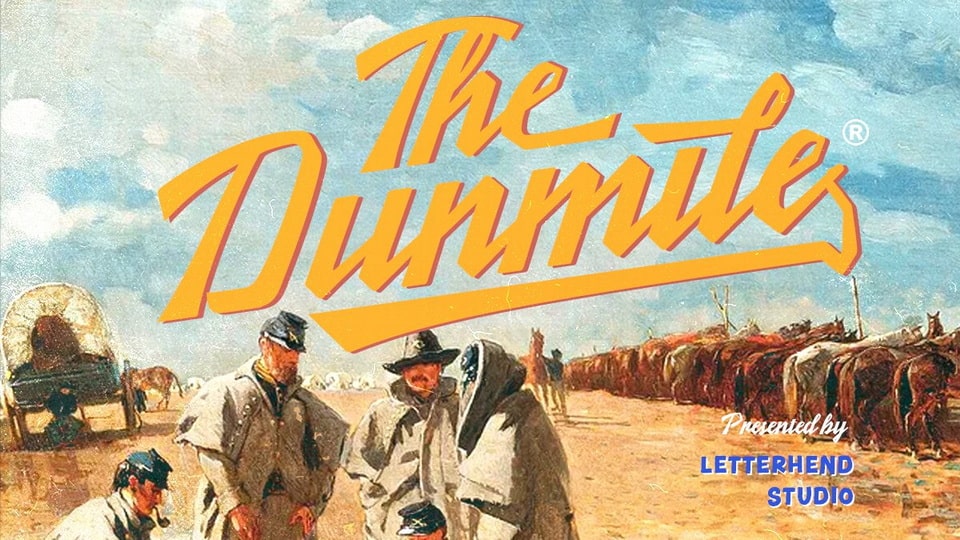
Download The Dunmile font, a modern script typeface with a touch of vintage look and feel. The Dunmile font is perfect for logo, headline, signage, labels or any type of advertising purpose.